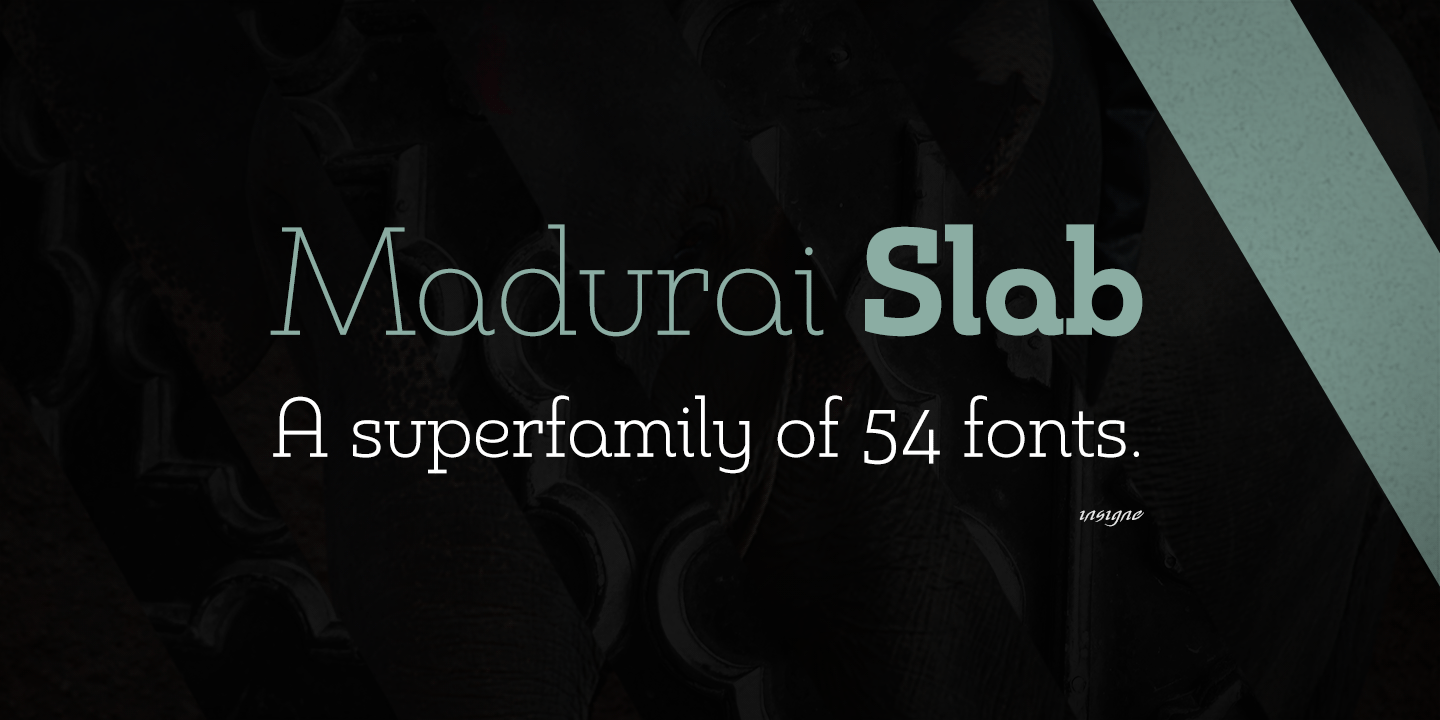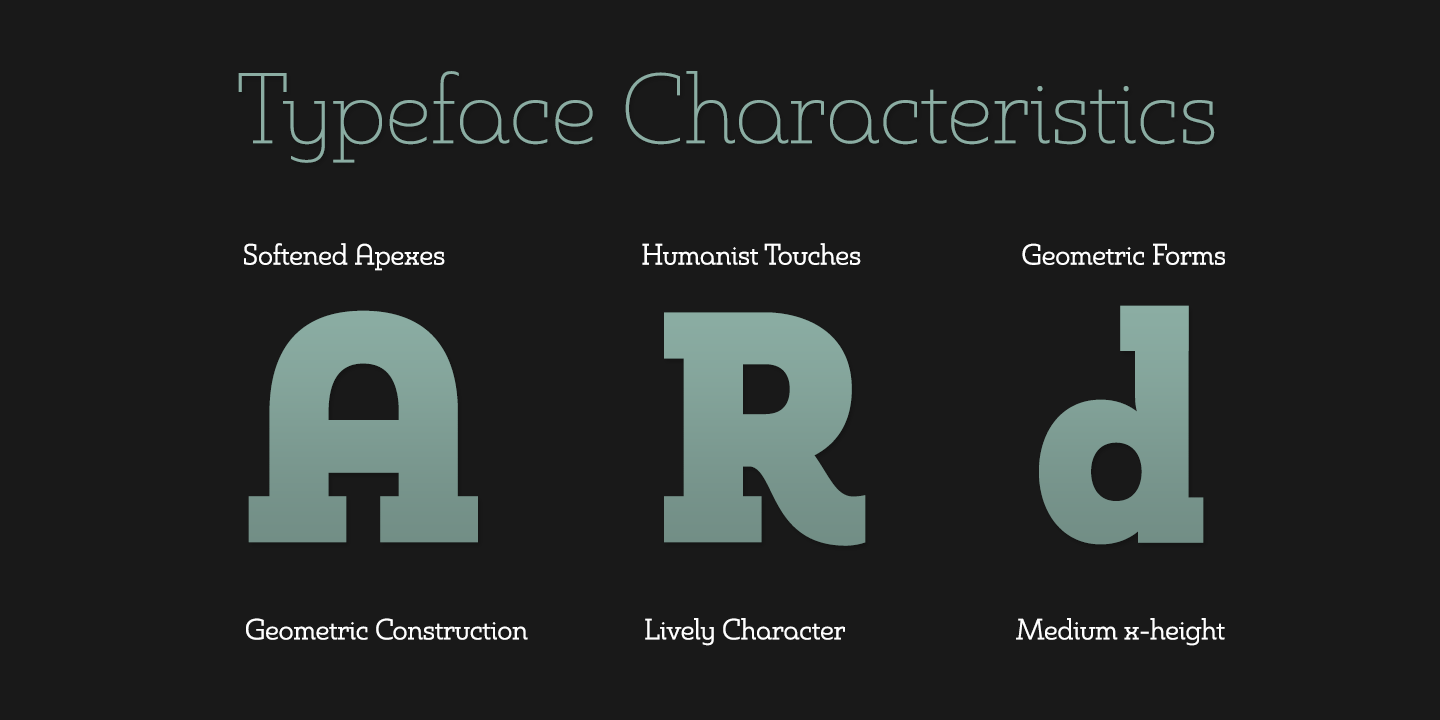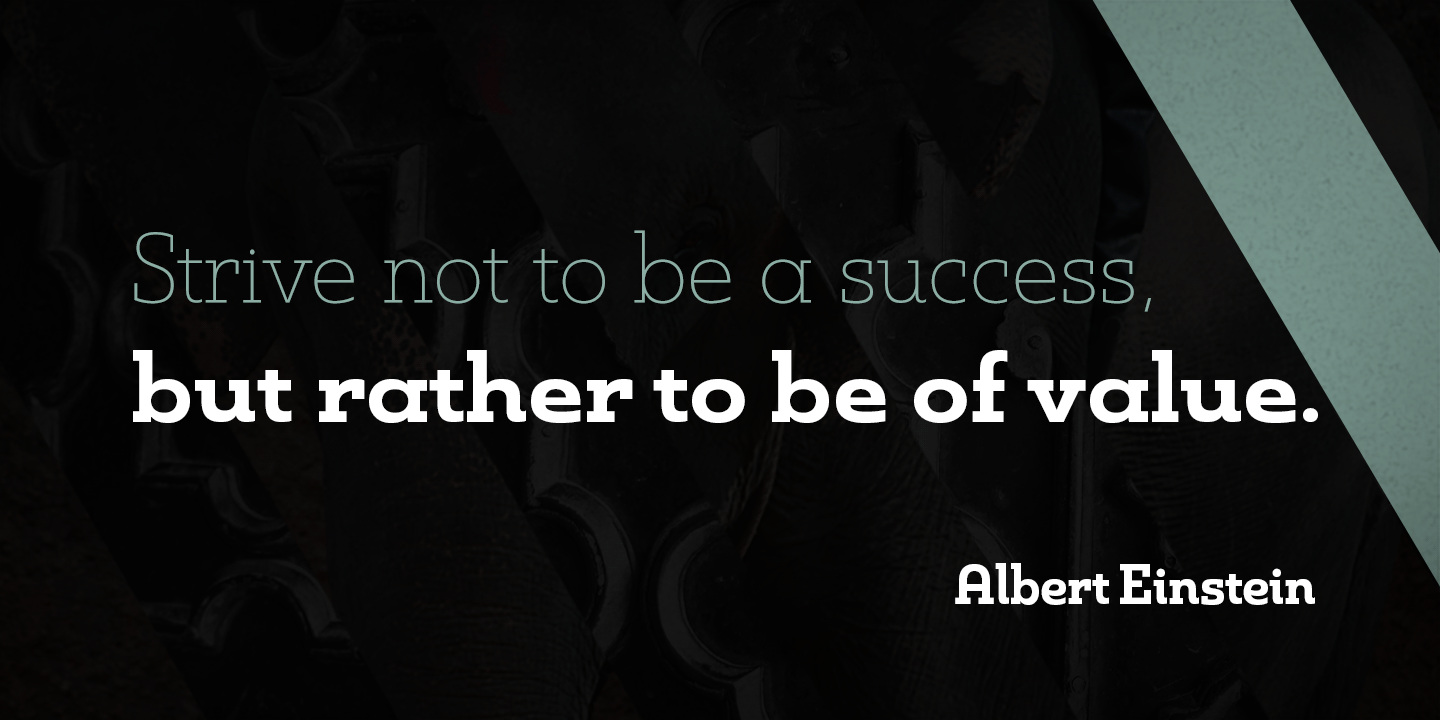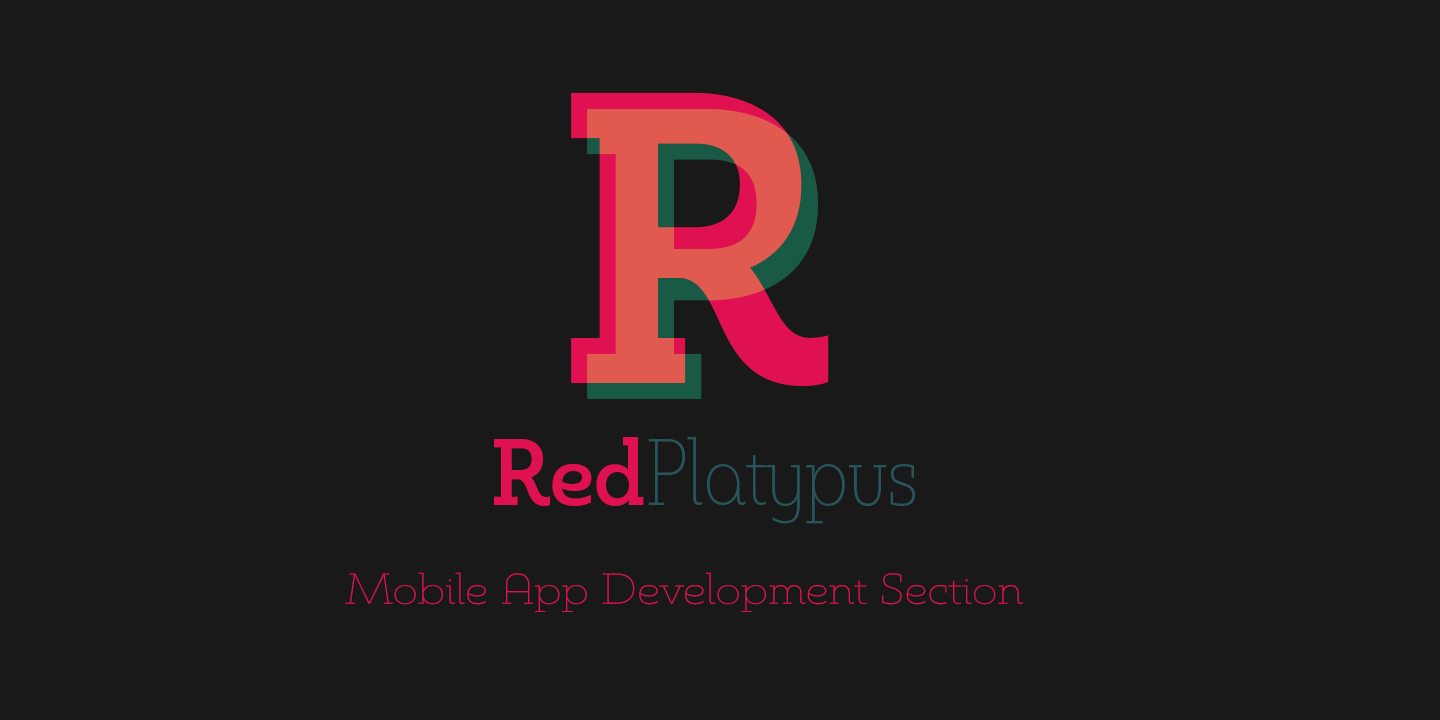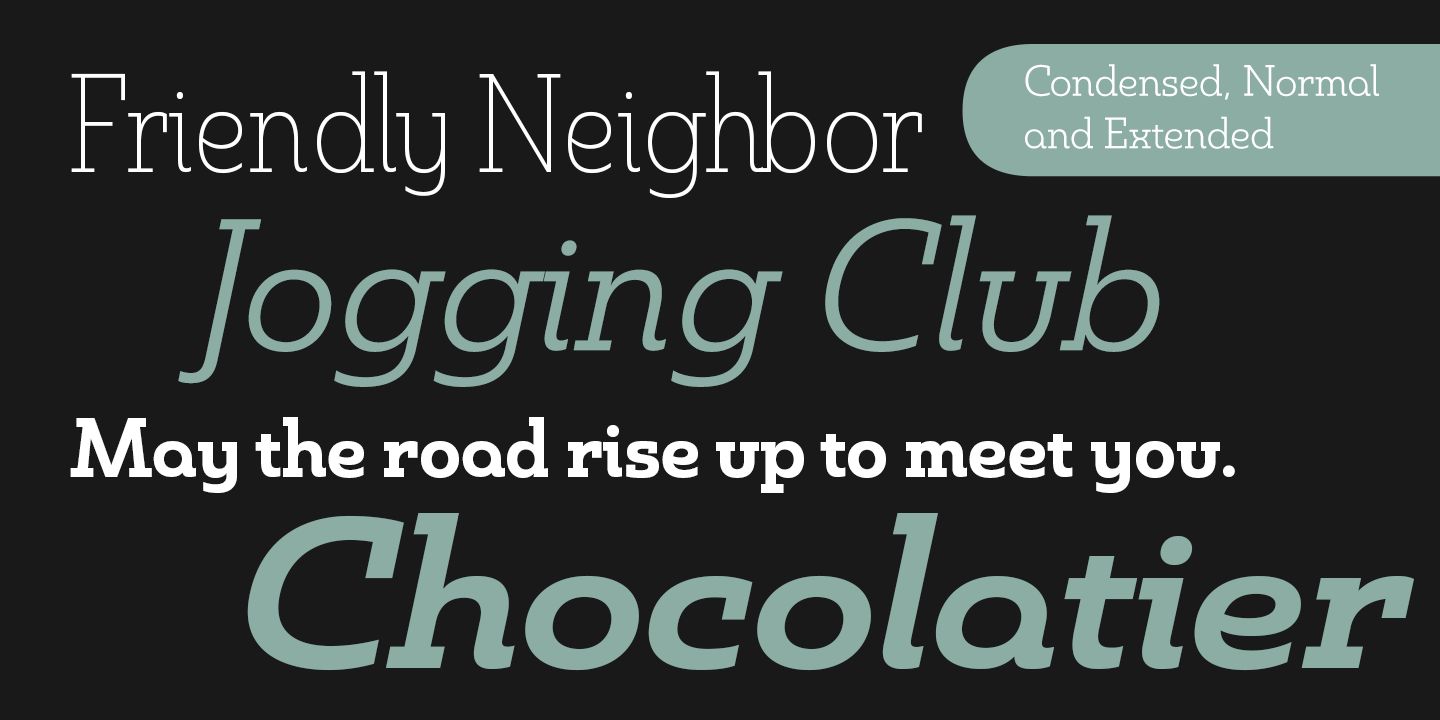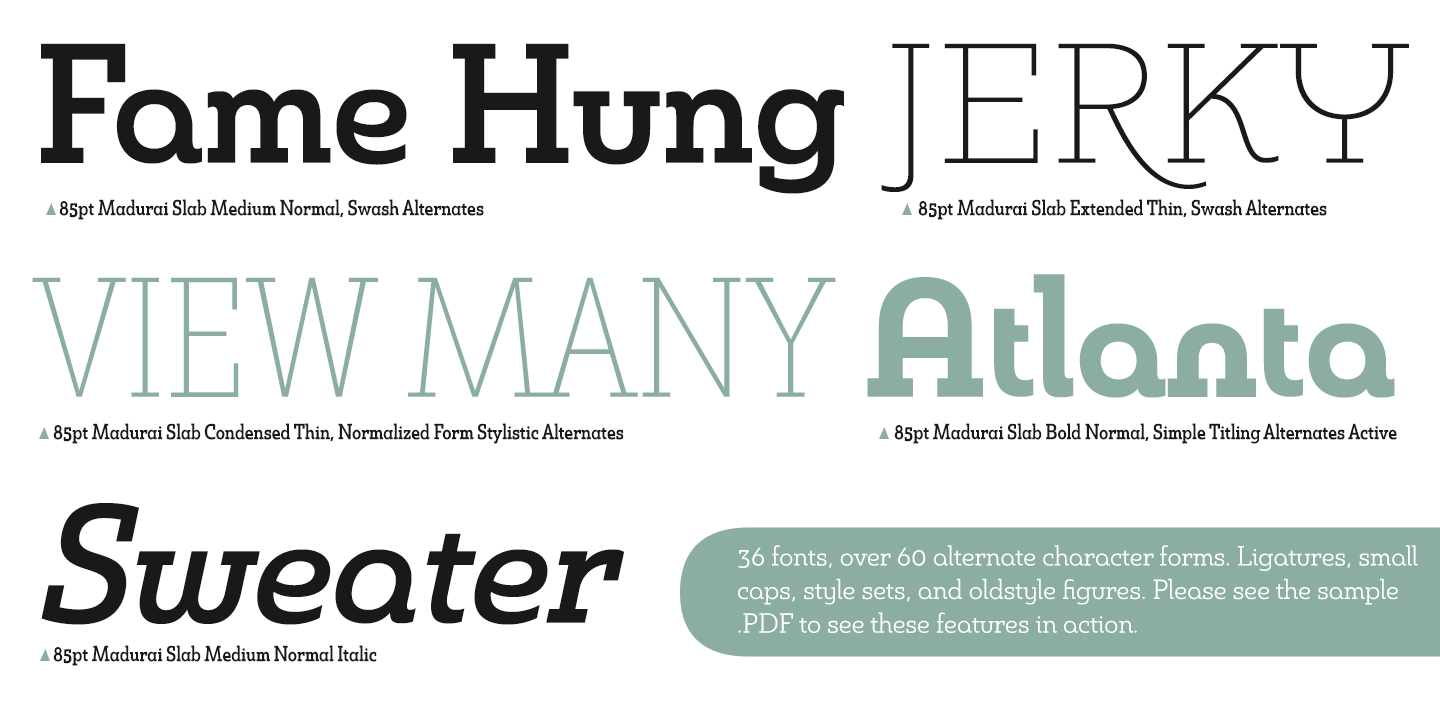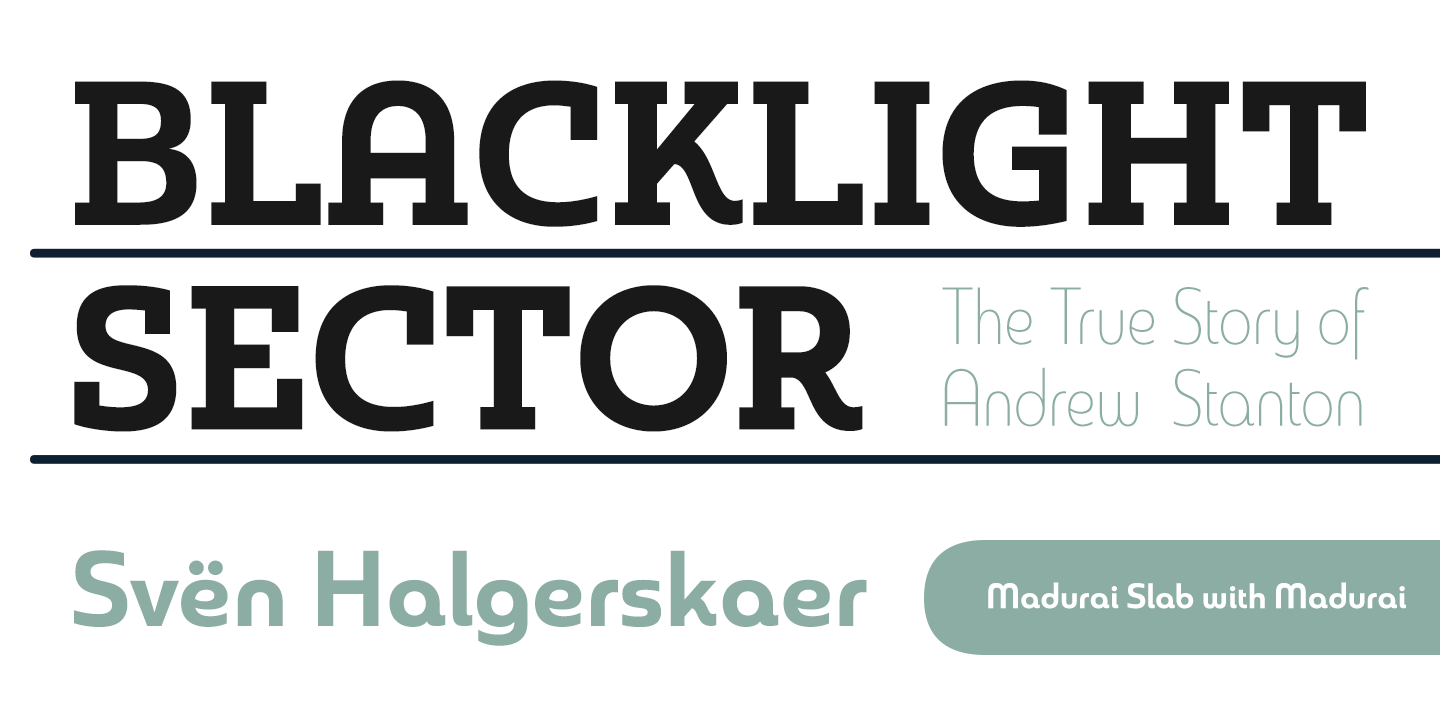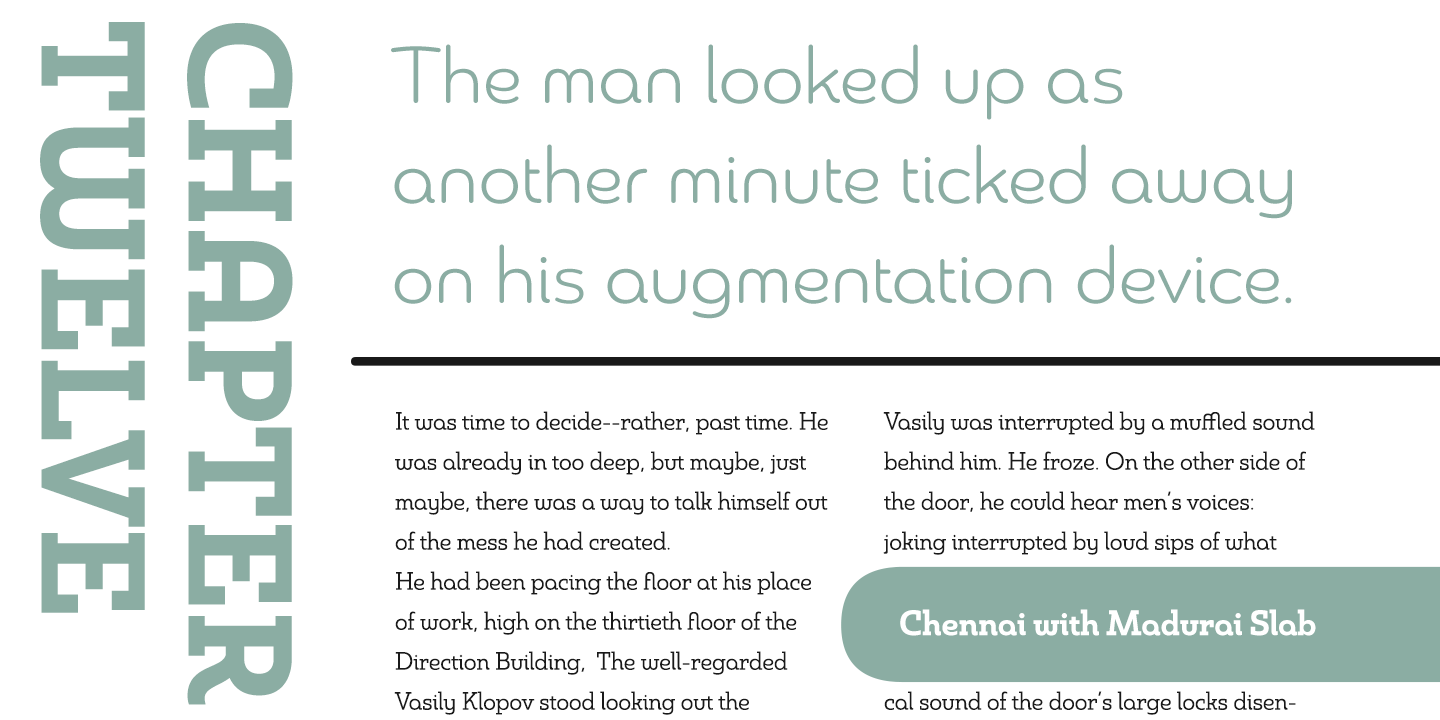
Madurai Slab
Font Family by Insigne
Chennai's market-tested type styles have taken new form once again. The geometric forms of Chennai and its derivant Madurai, both successful in web-based applications and logotypes, have now been adapted for the superfamily Madurai Slab, a potent, square slab serif ideal for headlines and posters.
Under the surface of Madurai Slab's straightforward geometric structure, the font's exaggerated vertical serifs provide the face with an extra chunk that commands the reader's attention and gives the font more impact in its heavier styles. The extra-fortified forms are anything but monotonous, though. The bolder structure of the slab is instead rational, diligently thought-out, with minimally contrasting strokes, making the sturdier look particularly legible in shorter textual content blocks.
This child of Madurai contains a comprehensive range of nine weights--slender to black--and features condensed and extender selections for a complete set of fifty-four fonts. All users of the Madurai Slab collection can access numerous OpenType alternates. Madurai Slab is furnished for experienced typographers, together with alternates, compact caps and many alts like ?normalized? capitals and lowercase letters that come with stems. The typeface also contains a range of numeral sets, together with fractions, old-style and lining figures with superiors and inferiors. OpenType-capable programs including Quark or the Adobe suite allow quick changes to ligatures and alternates. Previews of these options can be found in the .pdf brochure.
Madurai Slab also features the glyphs to enable all Central, Eastern and Western European languages. In all, Madurai Slab supports around forty languages that utilize the prolonged Latin script, making it an excellent option for multi-lingual publications and packaging. This richness of options makes this the best slab serif family for websites as well as for print, motion graphics, logos, t-shirts and the like.
Madurai Slab is a great choice when looking for a Neo-Grotesque slab serif font. In the hands of a learned designer, this new slab offers the potential for beautiful and well-blended layouts. With its widths adjusting to compact and extended content blocks, this typeface is perfect for the headings, captions and other brief, immediate messages that you need to drive your message home.